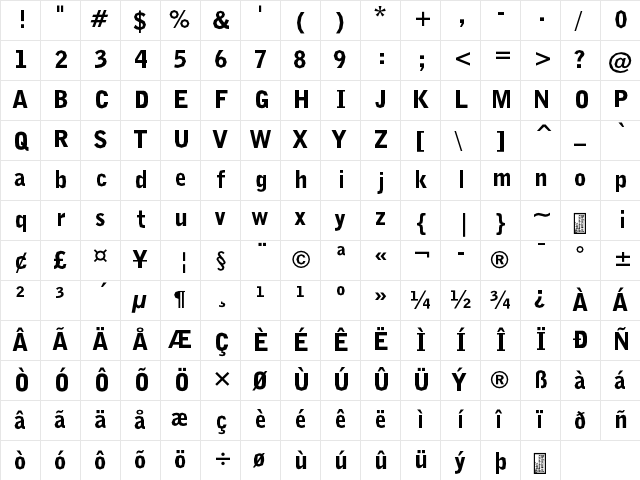
Delinquent Black Regular Font Preview
Delinquent Black Regular
Delinquent Black Regular Font Details
| Designer | K.Hachmang |
Design Context for Delinquent Black Typeface
Delinquent Black offers clean, dependable letterforms without strong stylistic allegiance, making it a practical choice for designers who need flexibility.